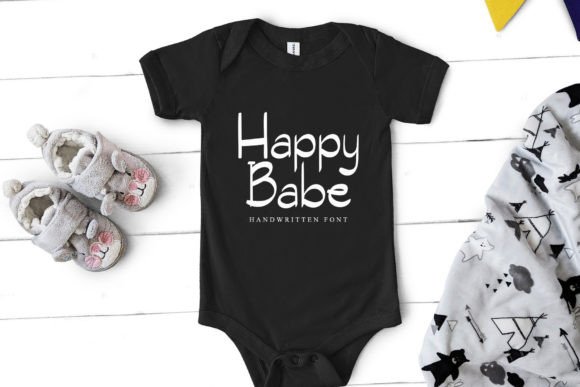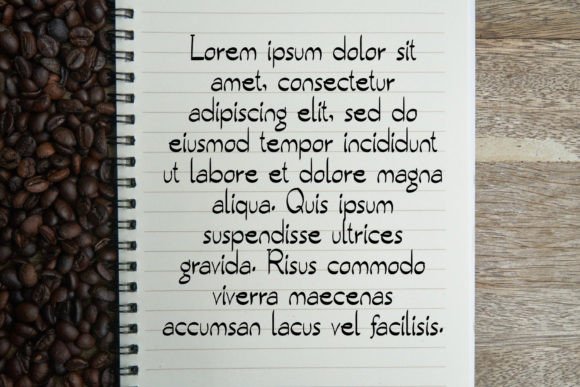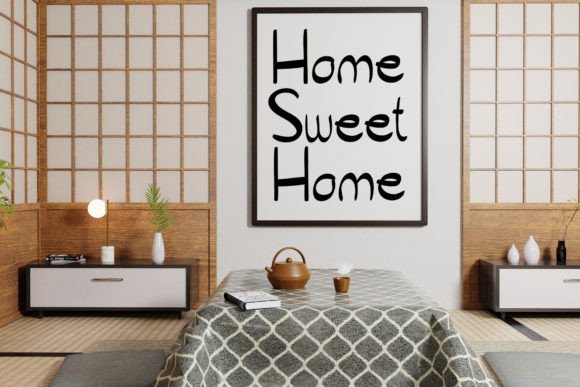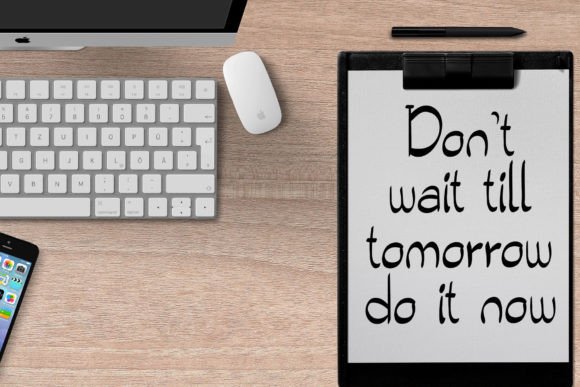
The Perfect Handwritten Touch: Unveiling Anggita Font
Have you ever stared at a blank sheet of paper, pen in hand, waiting for the perfect idea to strike? That’s exactly what happened to me when I first laid eyes on Anggita Font. Its playful, whimsical design immediately sparked a wave of creative inspiration, and I knew I had to learn more about this charming font.
Anggita Font is a delightful handwritten typeface that brings a personal touch to any design project. Whether it’s a wedding invitation, a greeting card, or a billboard, this font adds a unique and memorable element that sets your work apart. For designers, Anggita Font is a valuable asset that can elevate their creations and make them stand out in a crowded market.
Key Features of Anggita Font
- Font Family: Anggita Font is a modern sans-serif font family with a unique, elegant design.
- Unique Characteristics: Anggita Font features a distinctive, rounded edge design that sets it apart from other sans-serif fonts, making it perfect for creative and modern designs.
- Language Support: Anggita Font supports a wide range of languages, including Latin, Cyrillic, and Greek scripts, making it a versatile choice for international designs.
Review of Anggita Font
Anggita Font is an elegant and sophisticated sans-serif typeface that has its own unique charm. One of the things that works well with this font is its ✨ consistency across various font sizes. Whether you’re using it for headings or body text, Anggita Font maintains its sleek and modern feel, making it perfect for a wide range of applications.
Another aspect of Anggita Font that I appreciate is its ✨ legibility. The font is highly readable, even at smaller font sizes, which is a testament to its well-designed letterforms. Additionally, the font’s ✨ rounded edges and subtle curves add a touch of warmth and friendliness, making it suitable for use in creative and design-oriented projects.
- ⚠️ Limited language support: Anggita Font only supports a limited number of languages, which may be a drawback for designers who need to work with multiple languages.
- ⚠️ Limited glyph set: The font’s glyph set is not as comprehensive as some other fonts, which may require designers to use additional fonts to supplement Anggita Font.
Overall, I think Anggita Font is a great addition to any designer’s toolkit. While it may have some limitations, its unique charm and consistency make it a great choice for a wide range of projects. If you’re looking for a font that exudes elegance and sophistication, Anggita Font is definitely worth considering.
Anggita Font is a versatile font that can be used for a variety of designs, including:
- Infographics and data visualizations
- Print materials, such as business cards and brochures
For optimal results, use Anggita Font in conjunction with bold and italic styles to add emphasis and create visual interest.
Alternatives to Anggita Font
Poppins is a clean and modern sans-serif font, ideal for digital products and websites. It has a high x-height, making it highly legible and suitable for body text. Poppins is a more versatile and neutral font compared to Anggita Font, which has a more unique and playful feel.
Use Poppins when you need a clean and modern look for your digital product or website, and you want a font that is highly legible and easy to read.
Montserrat is a geometric sans-serif font, inspired by the urban landscape of Montserrat, Argentina. It has a strong and modern feel, making it ideal for headlines and titles. Montserrat is a more dramatic and attention-grabbing font compared to Anggita Font, which has a more subtle and elegant feel.